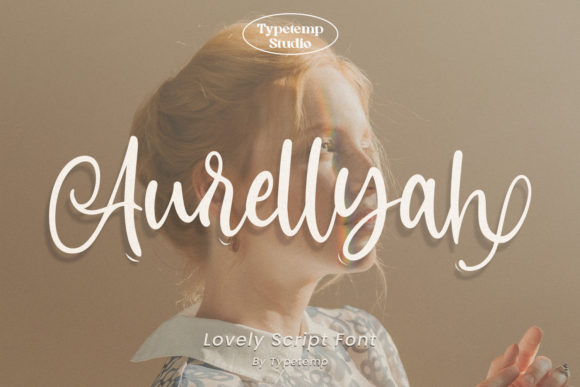
The Quest for the Perfect Font: Discovering Aurellyah Script
I’ll never forget the time I was working on a project for a client who wanted a font that was both elegant and modern. I spent hours scouring the internet, trying out font after font, but nothing seemed quite right. That was until I stumbled upon Aurellyah Script. This exquisite handwritten font has since become a staple in my design toolkit, and I’m excited to share it with you.
A Personal Review of Aurellyah Script
• ✨ Aurellyah Script is masterfully designed to feel both classy and contemporary. Its calligraphic influences are evident, yet it doesn’t feel too traditional or over-the-top.
• ✅ The font is PUA encoded, making it easy to access all the glyphs and swashes. This is a game-changer for designers who want to add a personal touch to their work.
• 💫 The handwritten feel of Aurellyah Script is perfect for projects that need a touch of personality. It’s versatile enough to work for everything from wedding invitations to branding materials.
While Aurellyah Script is an amazing font, there are a few things to keep in mind. ⚠️ Some users may find that the font can be a bit finicky when it comes to kerning. This is relatively easy to adjust, but it’s something to be aware of. 🤔 Additionally, while the font comes with a range of glyphs and swashes, some users may find that they want even more customization options.
The Story Behind Aurellyah Script
While the true story behind Aurellyah Script may be unknown, it’s easy to imagine that it was created by a designer who was passionate about calligraphy and handwriting. The font’s elegant, refined feel suggests a deep understanding of traditional calligraphic techniques, while its modern, fresh feel suggests a willingness to push boundaries and try new things.
Q: Is Aurellyah Script easy to read?
A: Yes, Aurellyah Script is designed to be easy to read, even at smaller sizes. However, as with any script font, it’s best to use it in moderation and pair it with a clear, legible font for body text.